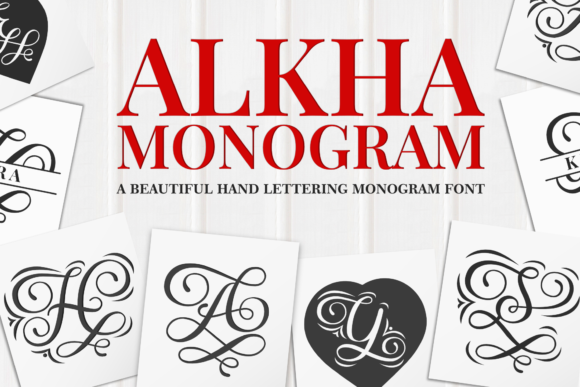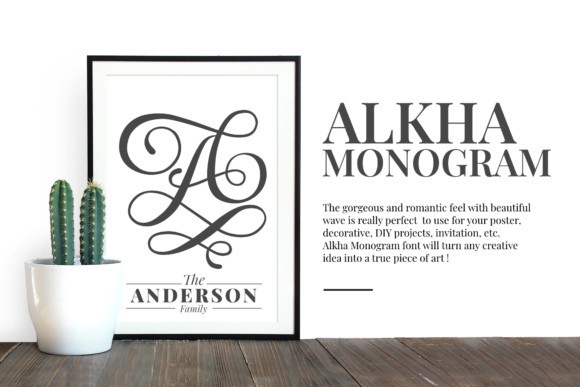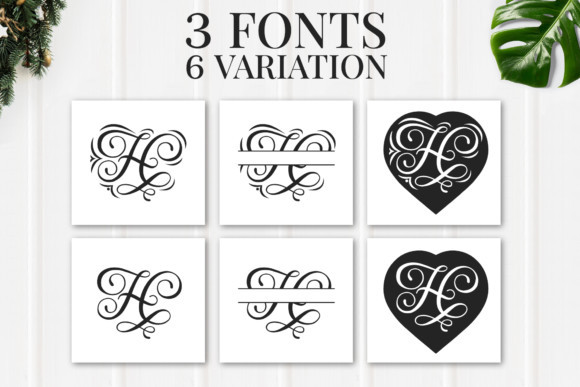
Alkha Font
Alkha simplifies elegance into one truly outstanding decorative font. This font will appeal to a wide range of crafty ideas, from letterheads and titles, to stationery.